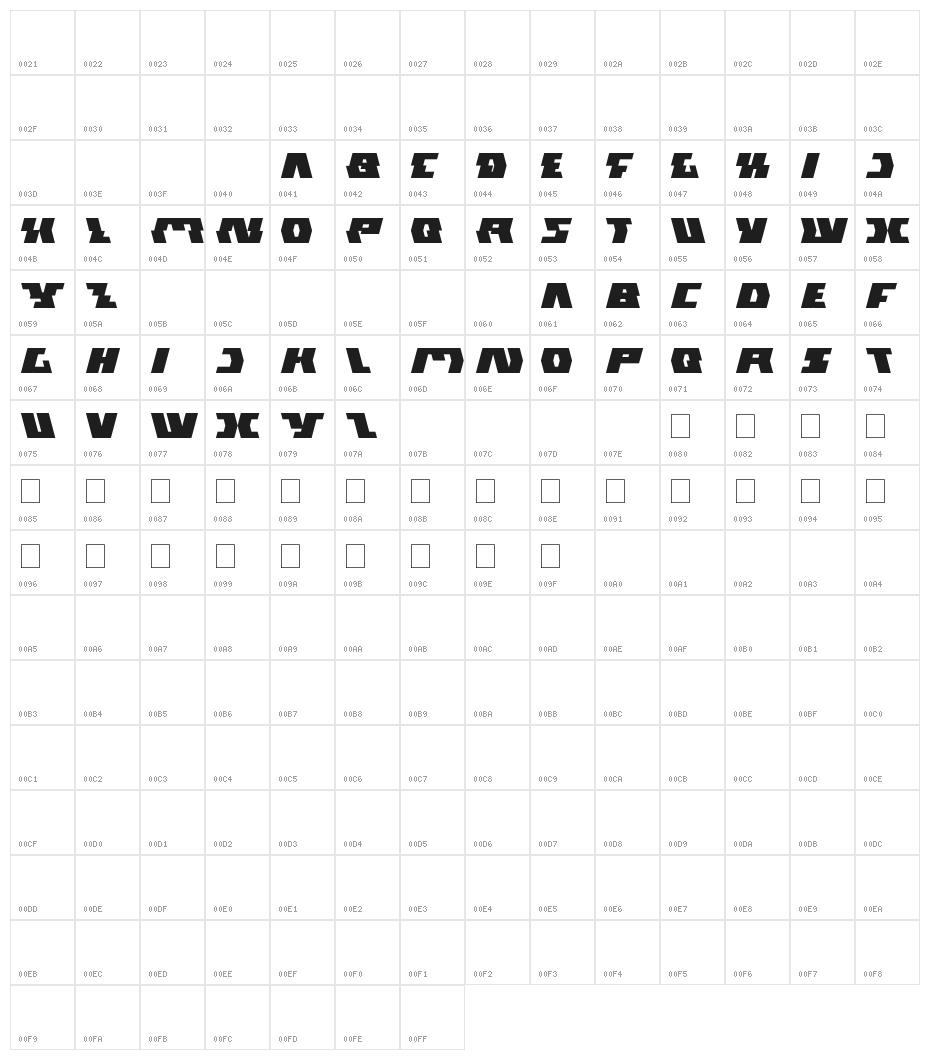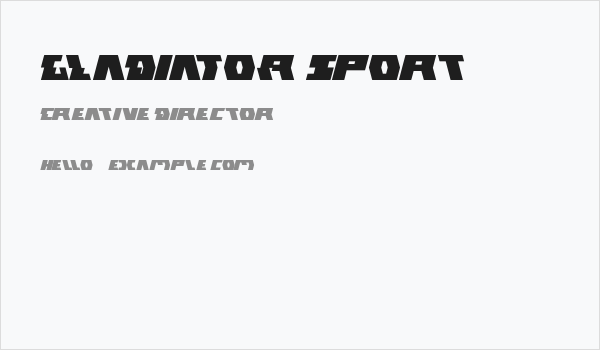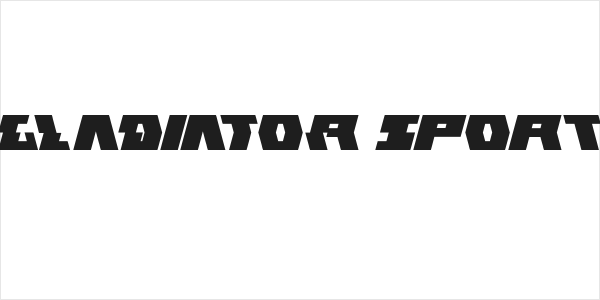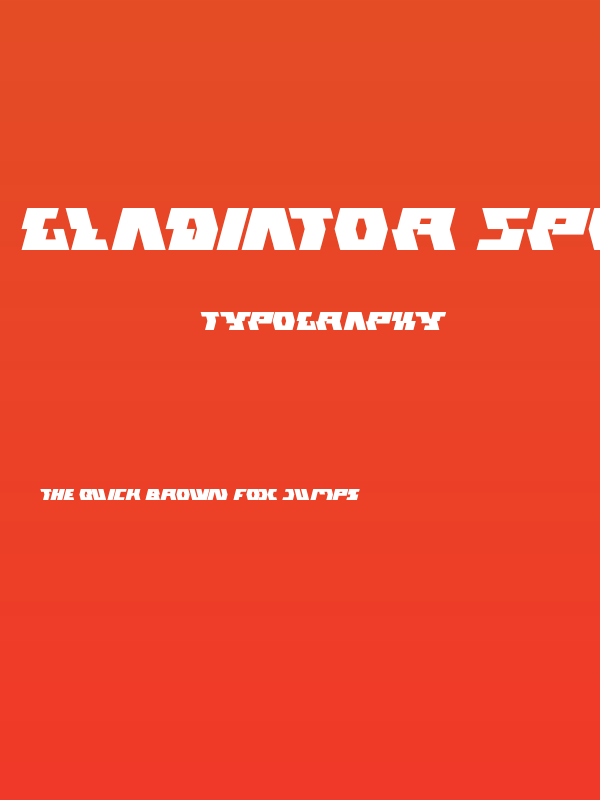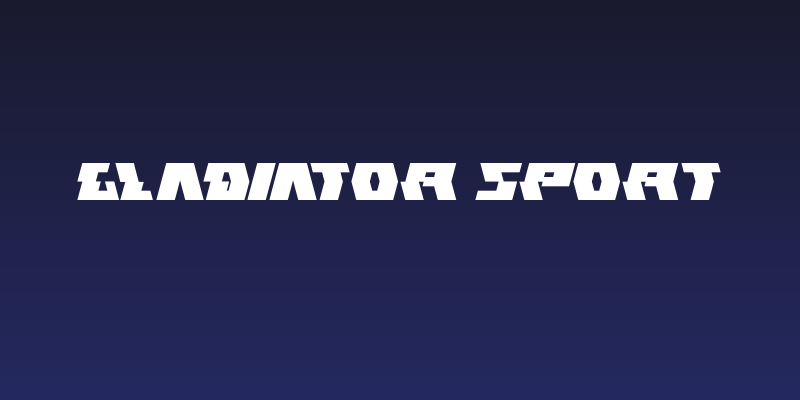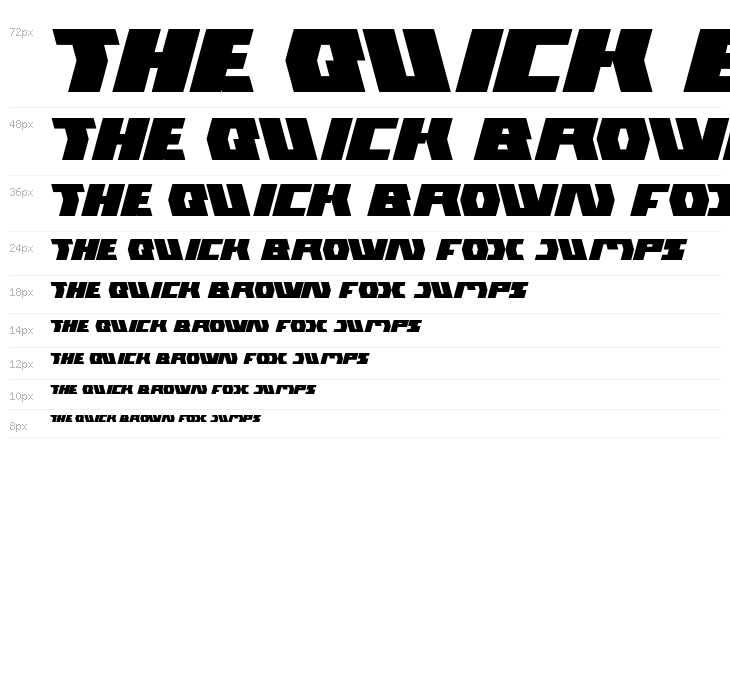
GLADIATOR sport Font
GLADIATOR sport Description
This font features a bold and angular design, characterized by sharp edges and a geometric structure. The uppercase letters are distinct with a futuristic and sporty aesthetic, making them stand out with their blocky and dynamic appearance. The font conveys a sense of strength and movement, suitable for impactful visual statements. The characters are uniformly bold, with consistent thickness throughout, enhancing the font's robust and solid feel. The spacing between characters is tight, contributing to its compact and cohesive look. This style is ideal for projects that require a modern and energetic vibe, such as sports branding, action-themed posters, or dynamic logos.
| Proposed Projects | Ideal for sports branding, action-themed posters, dynamic logos, and modern design projects. |